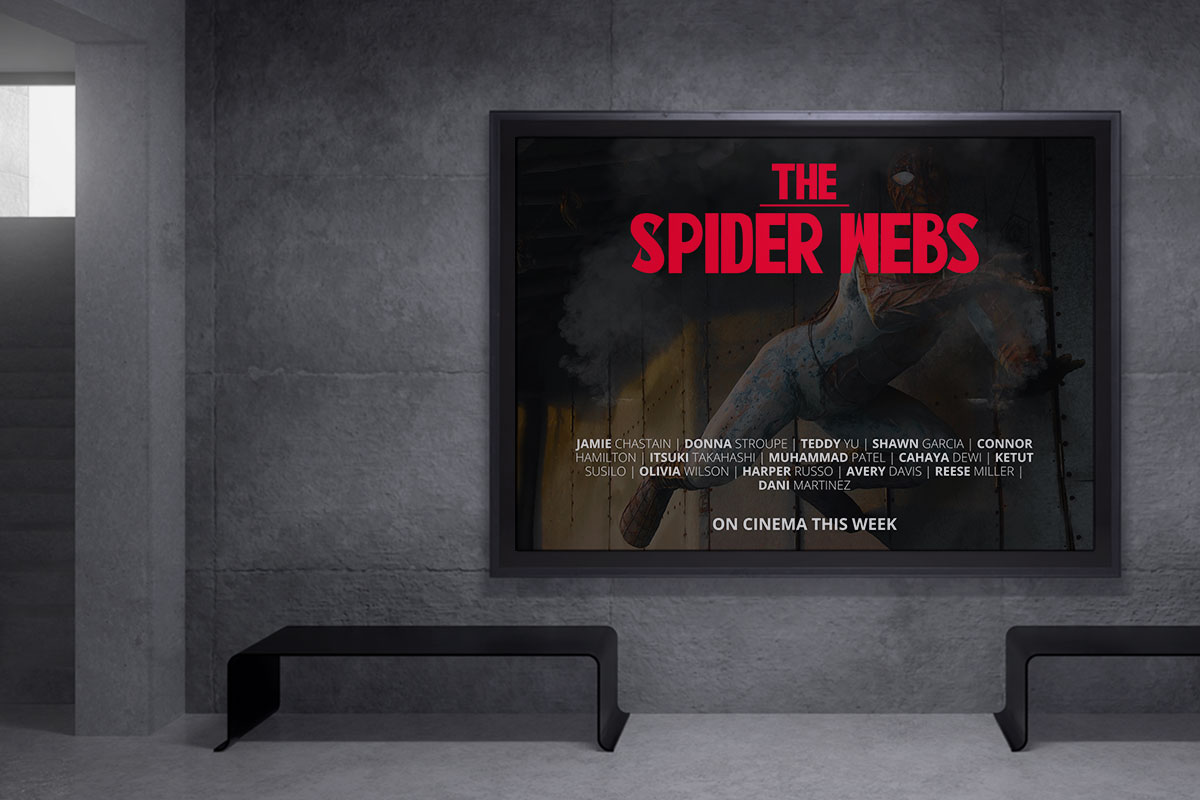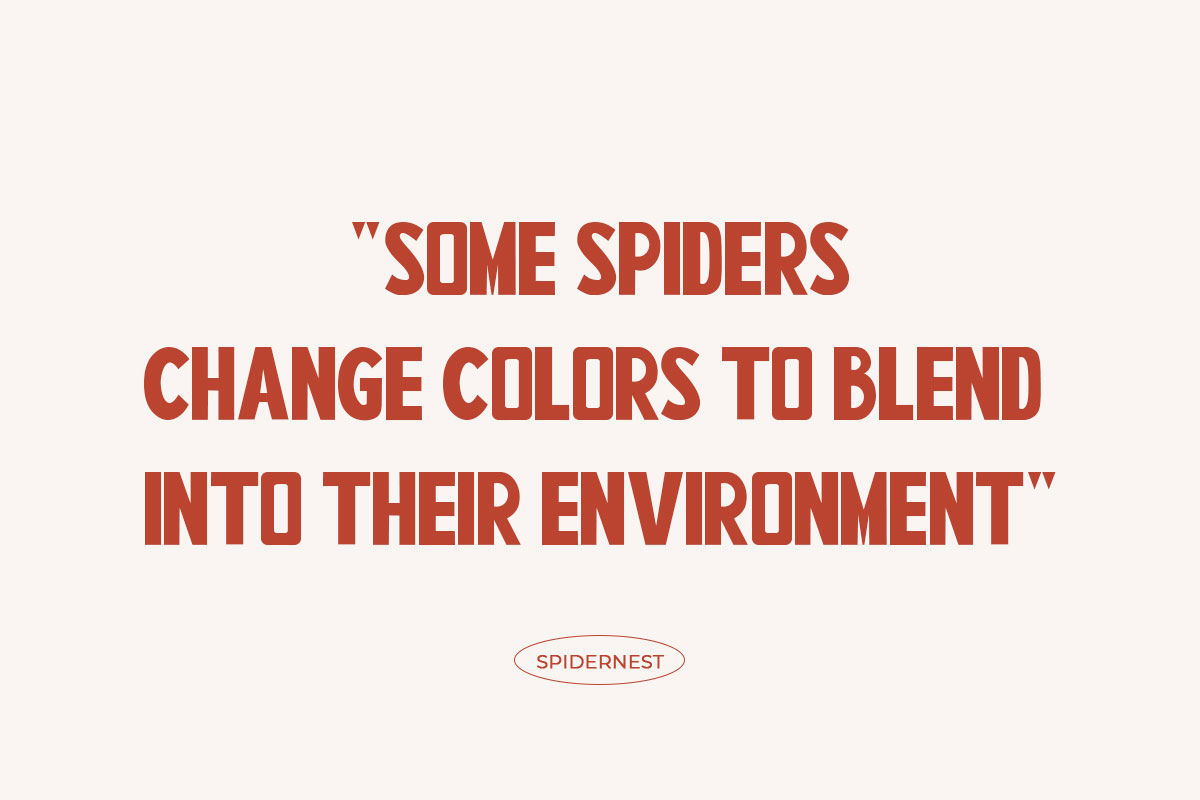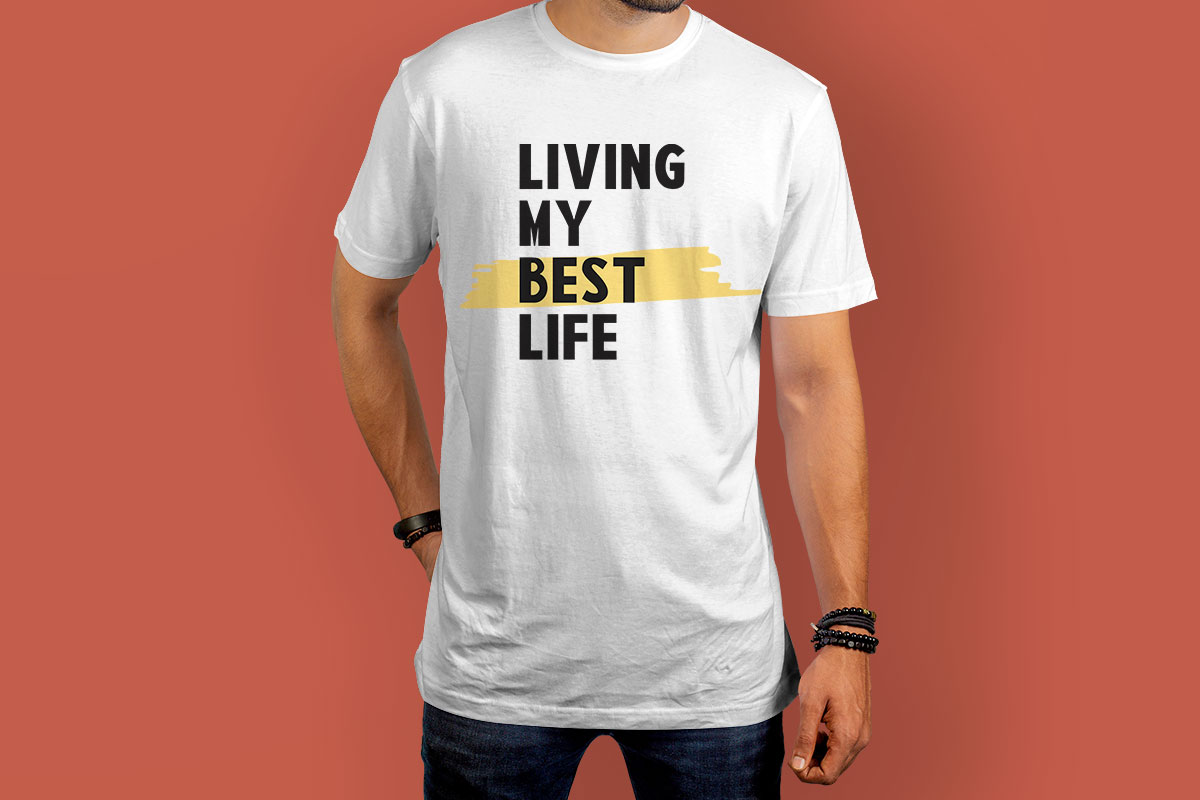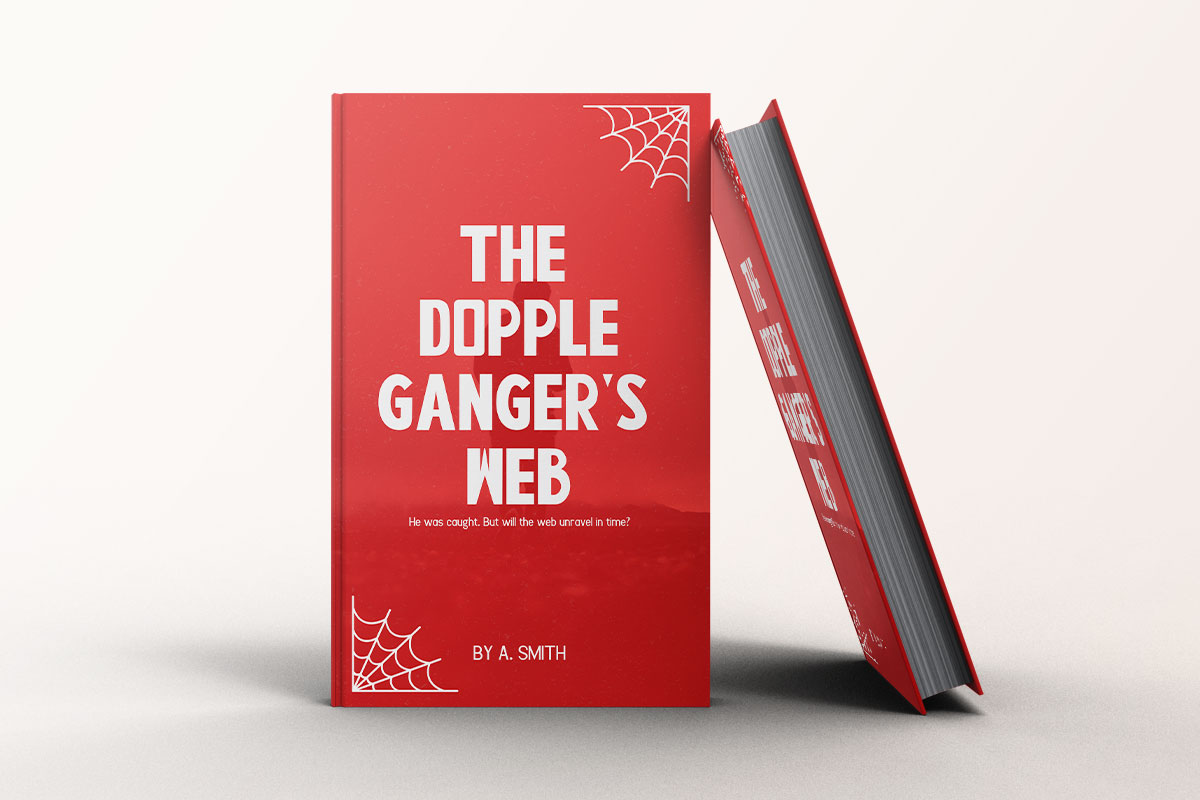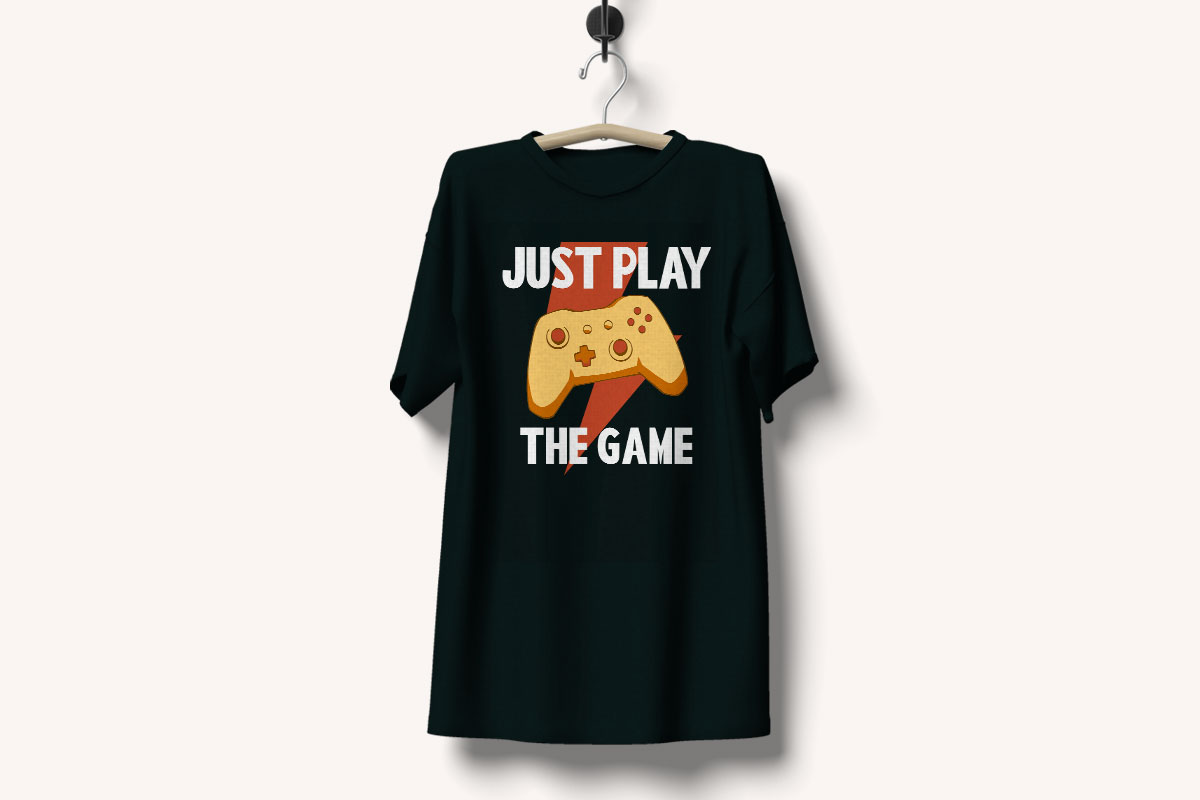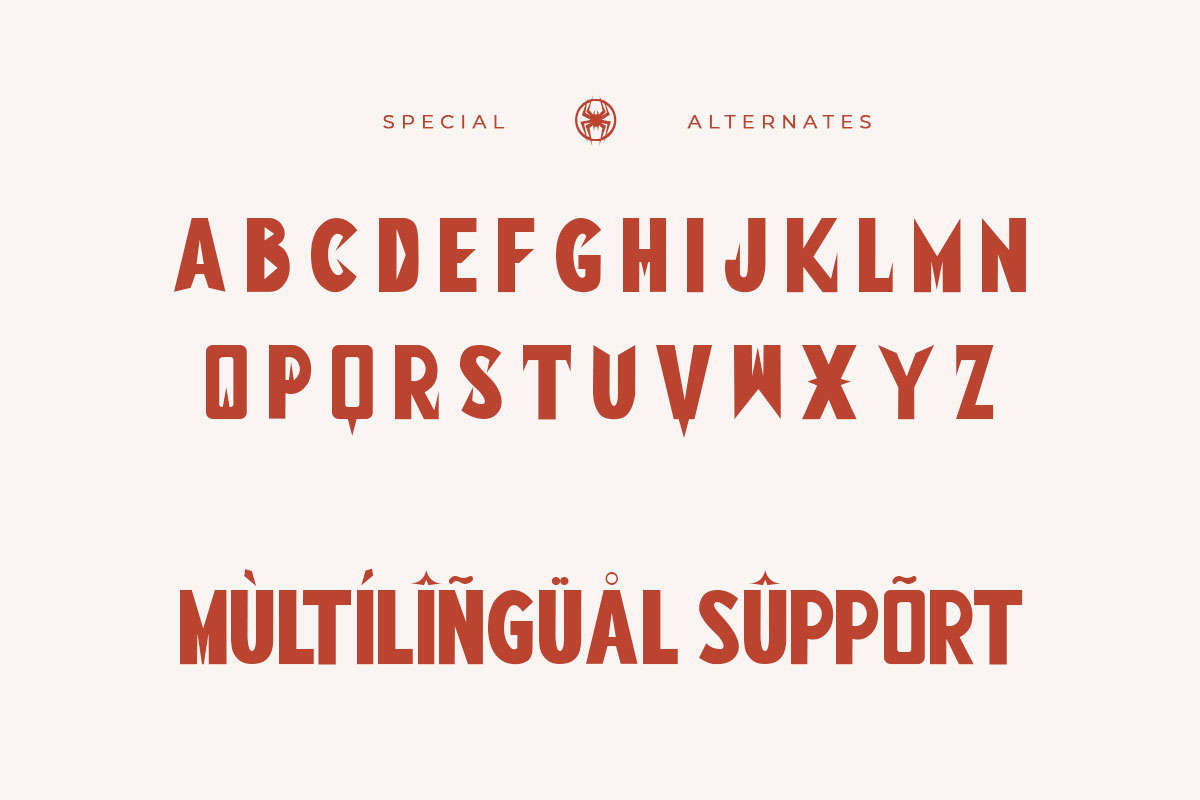
Spidernest Sans Serif Font The Sans Serif font type, Spidernest Sans Serif Font features strong modern font elements. Each letter of this font is easy to distinguish. You can see from a distance or up close. The letters in this font are modern, simple, and cool. This type of font is best used for clothing item design, such as clothing. This font can be used as a digital font, such as on the web, video, and other displays, and as a print font on posters, banners, and book covers. Spidernest Sans Serif Font can be used on the covers of science books and magazines. Spidernest Sans Serif Font is upright and clean, but not suitable for writing newspapers, magazines, or articles on the web. This font is better used for writing short sentences or words because it will look clear and bold. This font includes legible fonts. Our collection of Sans Serif fonts is compatible for use as; Figma Fonts, Canva Fonts, Freepik Fonts, and Adobe Fonts. They also work as Windows Fonts and Apple Fonts. For your social media needs, you can use and install fonts in our collection of Espot & Futuristic fonts to use as Instagram Fonts, Facebook Fonts, and Twitter Fonts.